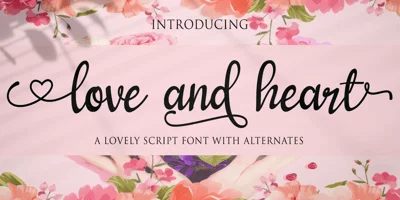
Love and Heart Font
The Love and Heart Font is a wonderfully romantic and often playful script typeface, specifically designed to infuse designs with warmth, affection, and a whimsical touch. Imagine its charming characters gracing bespoke wedding invitations, adding a sweet and intimate feel to Valentine's Day cards, or creating heartfelt titles for romantic novels, personal blogs, and anniversary gifts. Its flowing lines, subtle flourishes, and often heart-themed accents or ligatures also make it an excellent choice for unique greeting cards, delightful social media graphics celebrating love, product packaging for confectionery or sentimental items, and any design where a heartwarming, joyful, and affectionate feel is desired. Whether you're aiming for a classic, romantic look or a playful design infused with genuine charm, Love and Heart Font delivers with its undeniable beauty, ensuring your visuals are both inviting and truly memorable.
What makes Love and Heart Font so exciting is its remarkable ability to immediately evoke feelings of joy, tenderness, and heartfelt emotion. In a visual landscape where connection and sentiment are highly valued, this font offers a refreshing dive into expressive typography. It conjures images of sweet gestures, cherished moments, and enduring affection. It’s more than just a typeface; it’s a design element that can instantly set a warm, inviting, and emotionally resonant tone for a project, making content feel more personal and deeply relatable. Designers will find it an invaluable asset for creating visuals that truly connect with an audience seeking comfort, happiness, and a sprinkle of romantic charm.
The Love and Heart Font family is typically structured to offer a thoughtful range of variations to enhance its usability and artistic potential. While the primary Love and Heart Regular script provides that distinctive handwritten look, you might find companion styles such as a slightly bolder Love and Heart Bold for emphasis, or various Love and Heart Swashes and ligatures that allow for even greater customization and natural flow between letters. Script fonts of this caliber often come with extensive OpenType features, including stylistic alternates and contextual alternates, which allow for truly organic and beautiful connections that mimic authentic penmanship and incorporate heart motifs or other romantic flourishes seamlessly. These diverse family members provide designers with the flexibility to create cohesive and sophisticated layouts that maintain the font's unique charm while offering practical solutions for various design needs.
For projects demanding a romantic, charming, and wonderfully heartfelt feel, consider the delightful Love and Heart Font. It's an excellent choice to infuse your designs with genuine love and warmth.